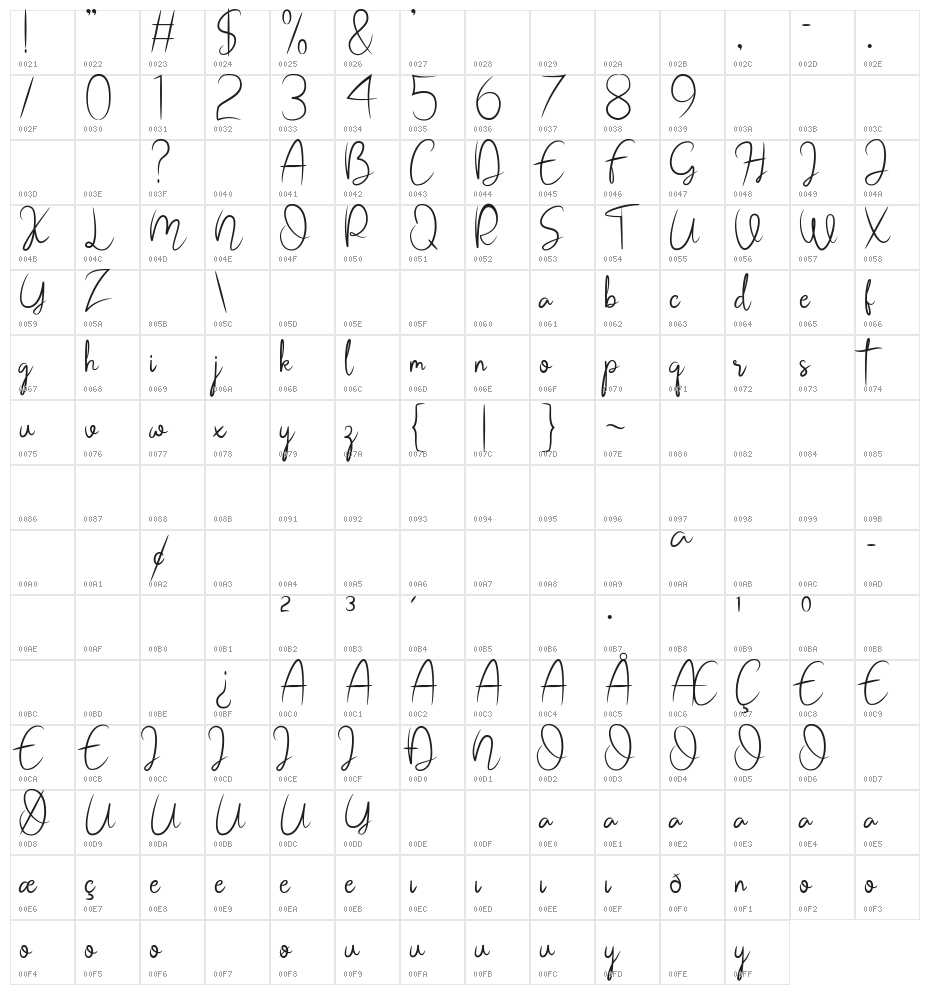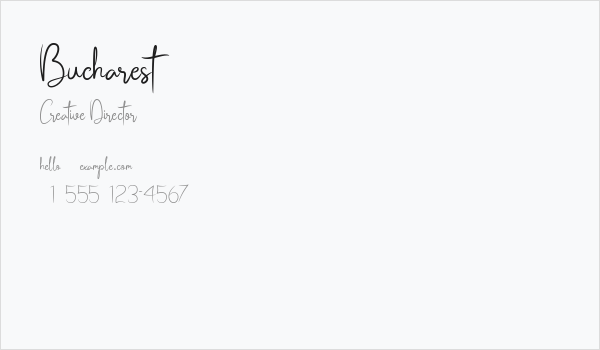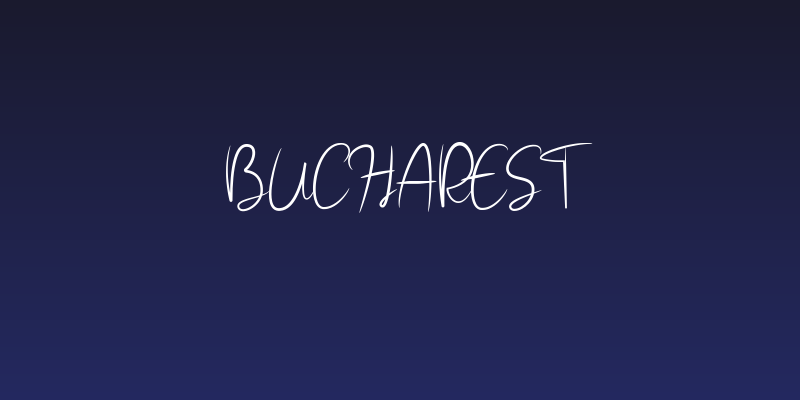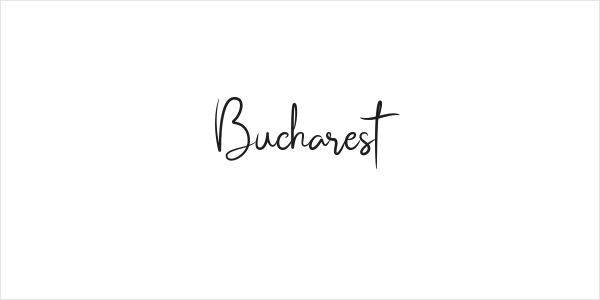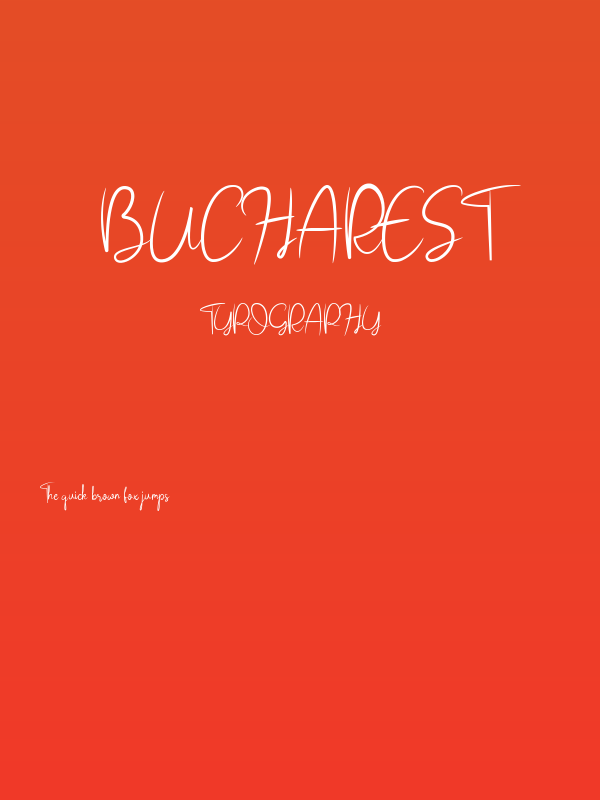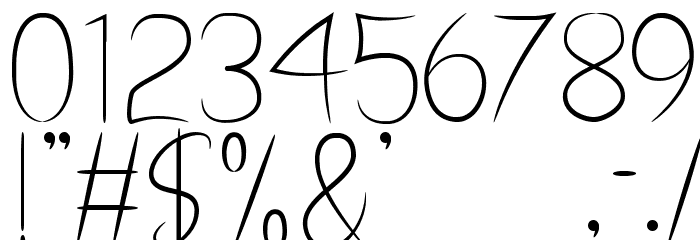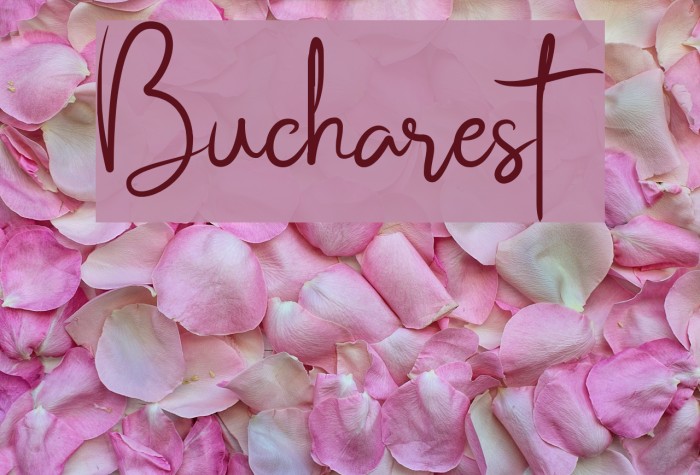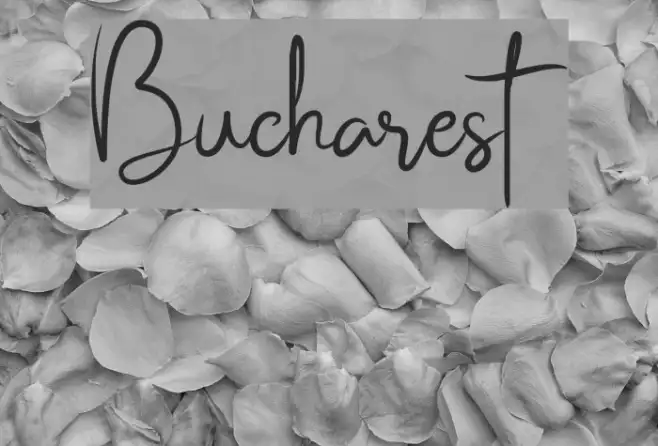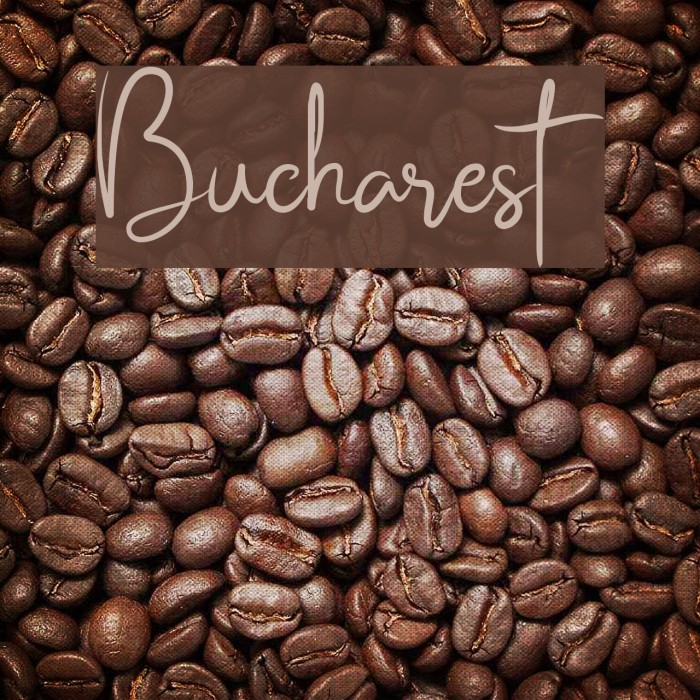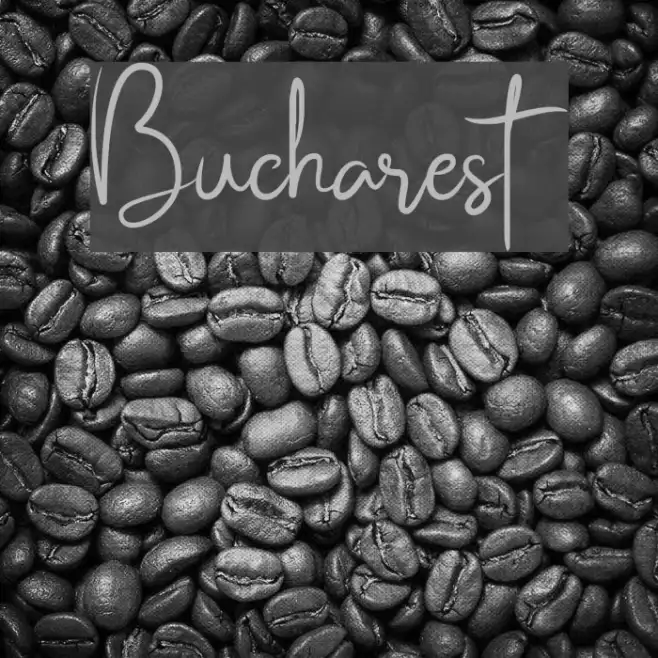
Bucharest Font
Bucharest Description
This font features a flowing, cursive style that exudes elegance and sophistication. The uppercase letters are tall and slender, with graceful loops and curves that create a sense of movement. The lowercase letters maintain a consistent flow, with smooth connections between each character. The numerals are distinct, with a slight slant that complements the overall cursive theme. Special characters are integrated seamlessly, maintaining the font's fluid aesthetic. The font's design is both artistic and readable, making it suitable for a variety of creative applications.
| Use Case | Logos, Invitations, Decorative Text |
| Proposed Projects | Ideal for wedding invitations, greeting cards, branding, and elegant logo designs. |